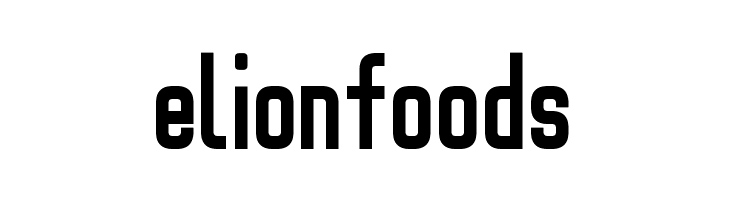
A playful, handwritten font with a whimsical and casual style.
A playful, heart-themed font with a hand-drawn, whimsical style.
Playful, rounded handwritten font.
A bold, decorative font with rounded, geometric shapes and a futuristic style.
A bold, futuristic font with rounded, abstract shapes.
A bold, geometric font with a futuristic, digital aesthetic.
A festive dingbat font with Mardi Gras-themed illustrations.
A dynamic, marker-style font with playful, hand-drawn characteristics.
A bold, sans-serif font with each character encased in a decorative, jagged circular border.
A decorative font with bold letters encased in intricate circular frames.
A bold, distressed font with a grunge texture and strong, blocky characters.
A bold, distressed font with a rugged, vintage texture.
A bold, geometric font with angular, architectural elements.
A bold, geometric font with sharp, angular strokes and a modern-retro aesthetic.
A bold, geometric font with a futuristic and industrial aesthetic.
A bold, geometric, and condensed font ideal for impactful headlines.
A bold, geometric font with a dynamic slant and thick strokes.
A dripping, liquid-like font with a bold, eerie style.
A bold, dripping font perfect for spooky or Halloween-themed designs.
A bold, decorative font with sharp, elongated strokes and a dynamic, modern style.
A bold, modern sans-serif font with tall, narrow characters and a strong presence.
A dynamic, calligraphic font with flowing strokes and sharp edges.
A dynamic, brush-style font with sweeping curves and sharp edges.
A bold, decorative font with playful serifs and dynamic strokes.